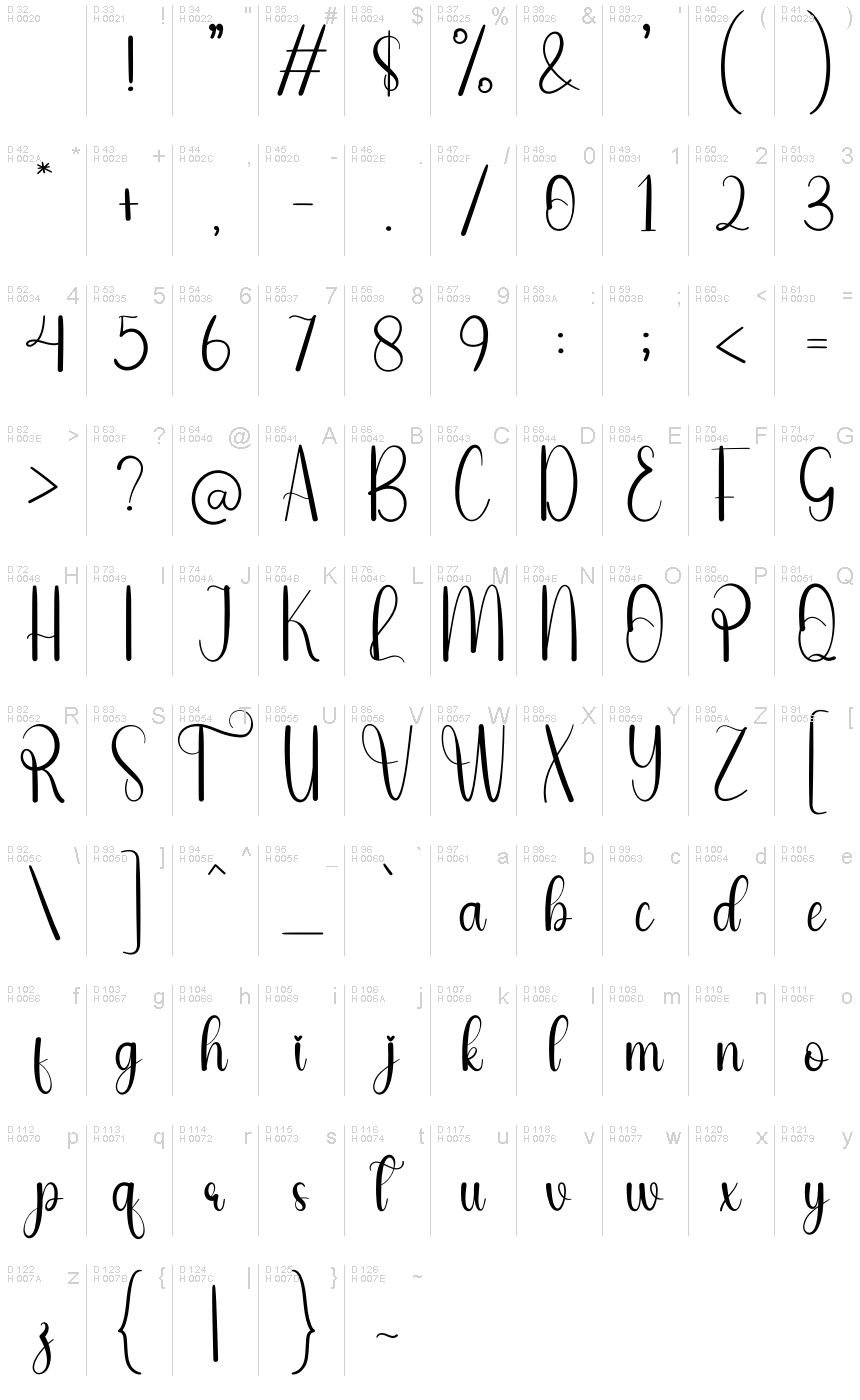
The Black
The Black, envisioned by the creative Gunawan, stands out as a semi-light, semi-condensed handwritten font that exudes casual elegance and a personal touch. Its beautifully crafted characters are perfect for bringing warmth and character to an array of design projects. Whether you're creating eye-catching wall displays or designing bespoke wedding invitations, The Black adds a stroke of sophistication and intimacy.
Its versatility extends to branding endeavors – imagine social media posts that instantly connect with your audience through its inviting curves or logos that convey uniqueness. Product packaging and labels adorned with this font are bound to turn heads, while its charm enhances photography watermarks with subtlety. Invitations and stationery gain an added layer of allure when graced by The Black's fluidity.
Embrace The Black for your next project and let its distinct style do the talking.